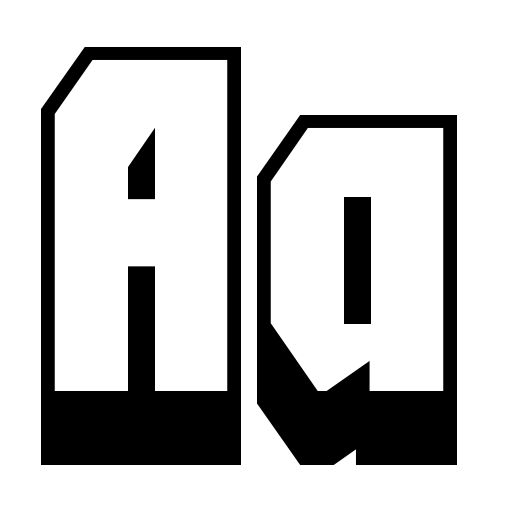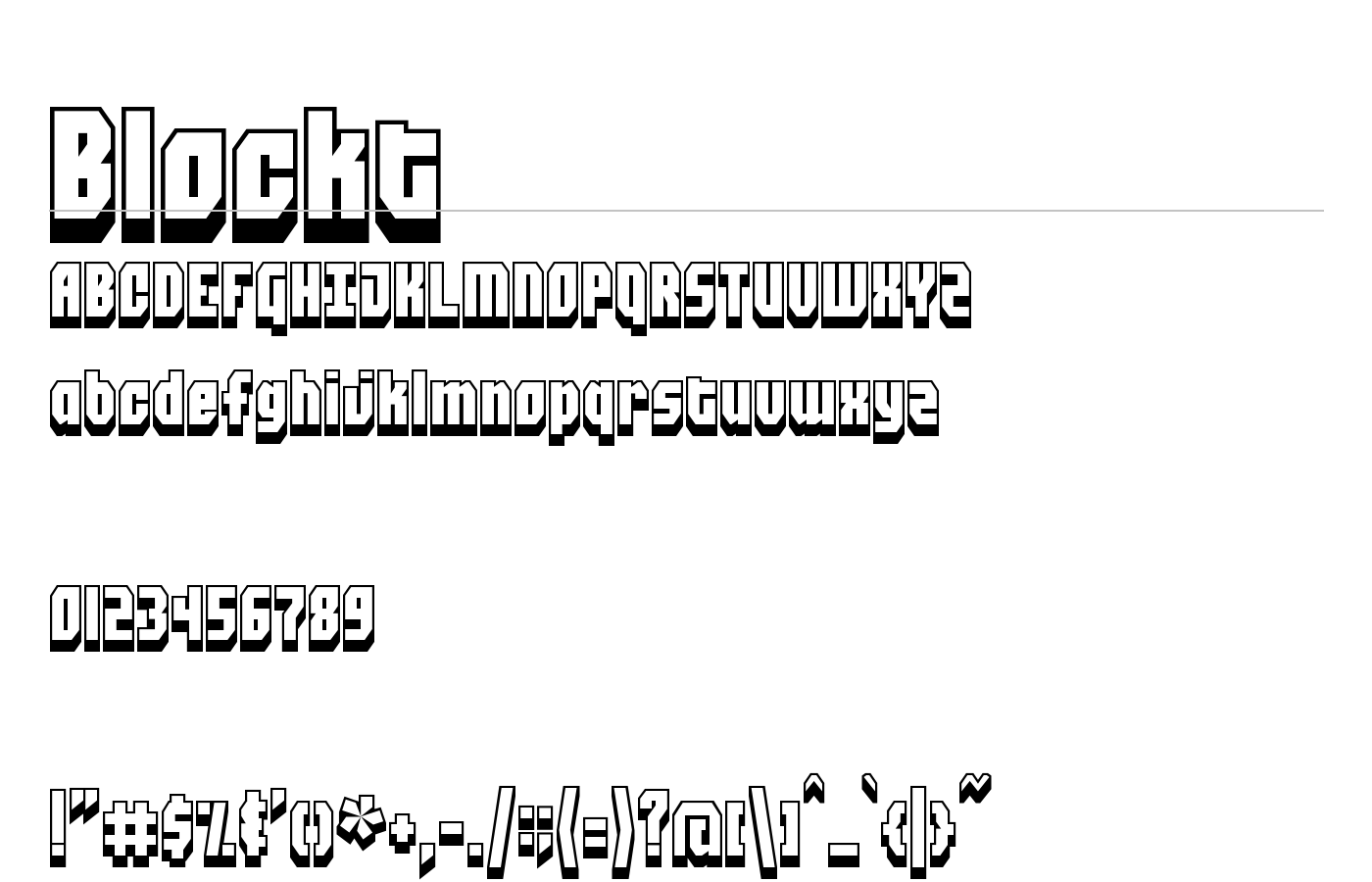
Blockt Font is a bold, geometric sans serif typeface with a strong 3D shadow effect that gives it a retro, playful vibe. Its blocky, condensed letterforms and consistent stroke weight make it ideal for attention-grabbing headlines, logos, and posters where a fun yet impactful style is desired. This font works well for brands and designs aiming to convey strength and personality with a vintage or game-inspired flair.
Blockt Font
About Blockt Font